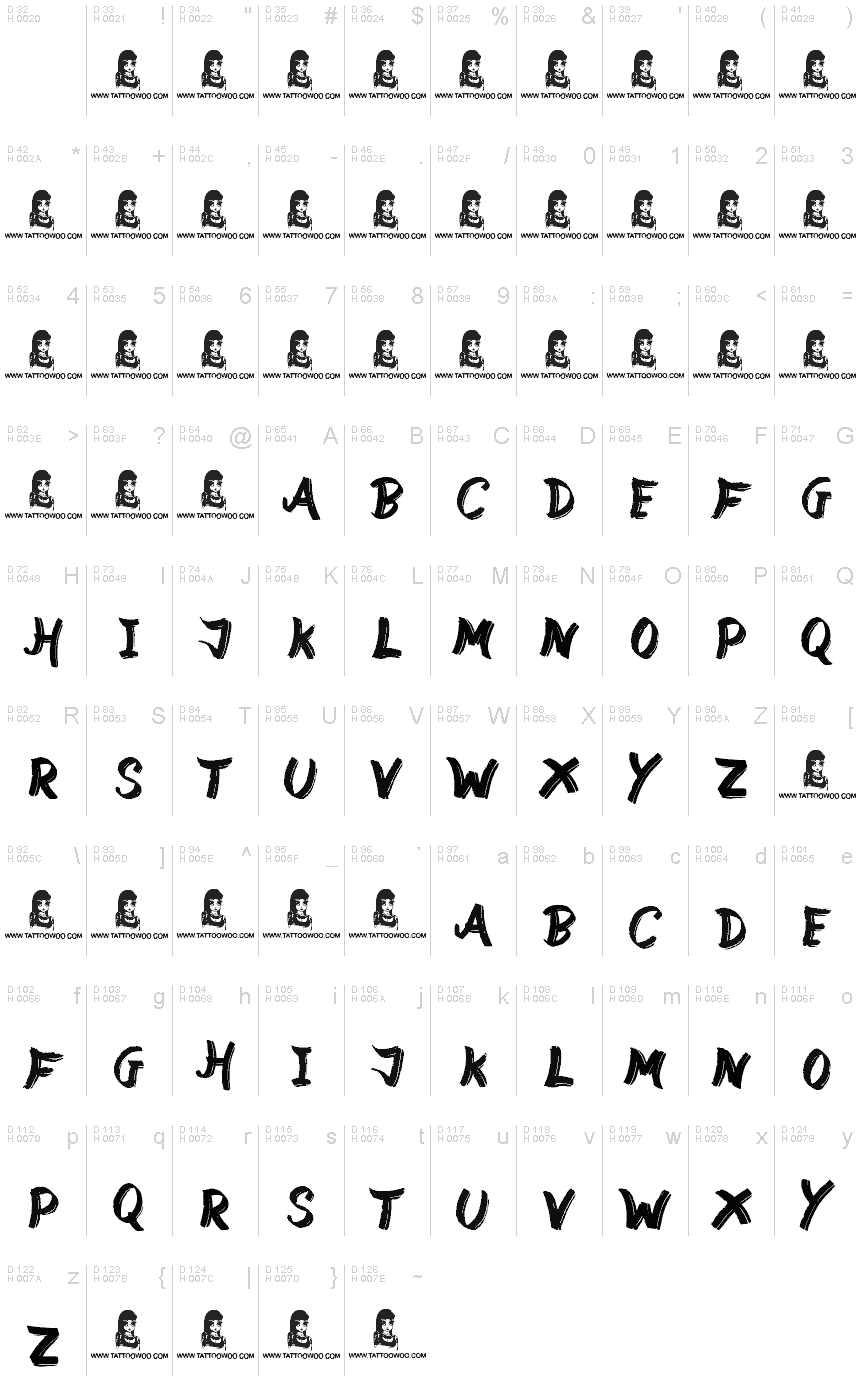
Street Wild
Street Wild, crafted by TattooWoo.com, is a font that exudes an edgy and rebellious vibe. With its bold brush style, this font adds a unique touch to any creative project. Whether you're designing a poster for a rock concert or creating eye-catching social media graphics, Street Wild is the perfect choice to make your text stand out. Its thick strokes and rough texture give it an urban feel that captures the essence of street art.
This versatile font can be used in various contexts and styles, from grunge to vintage to contemporary designs. Its bold weight ensures legibility even at smaller sizes, making it suitable for both headlines and body text.
Let Street Wild unleash your creativity and add an element of raw energy to your next project!